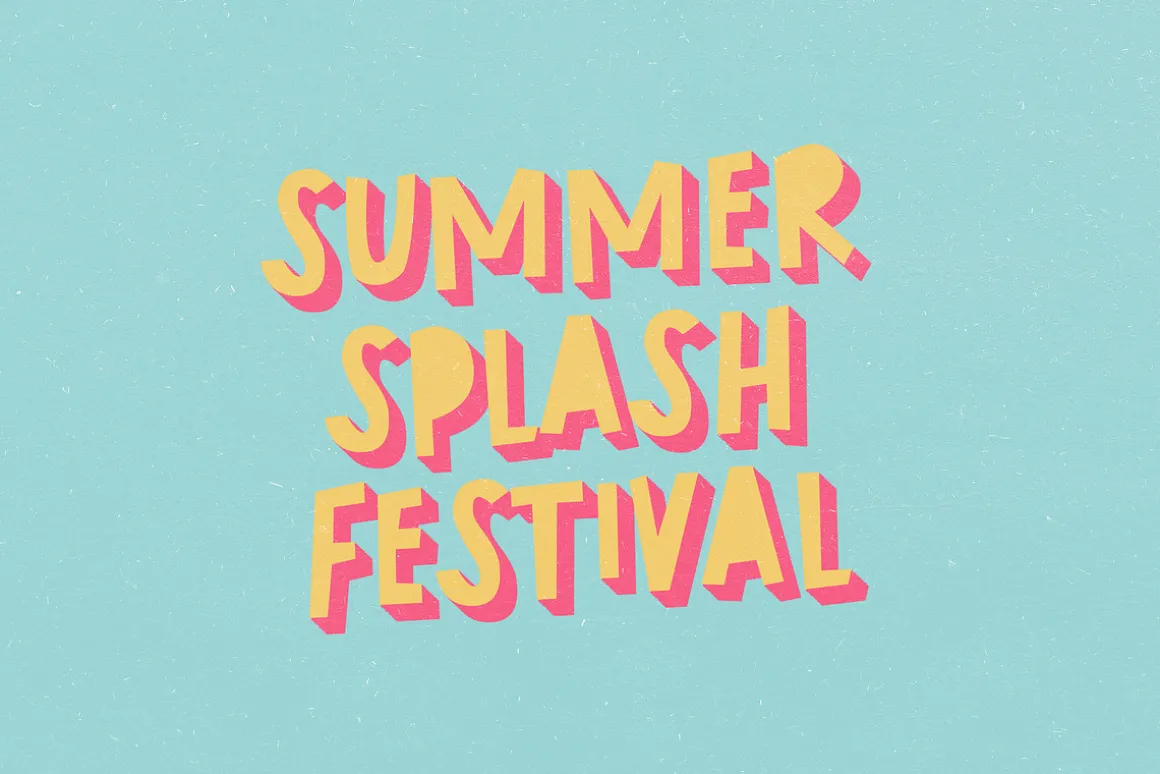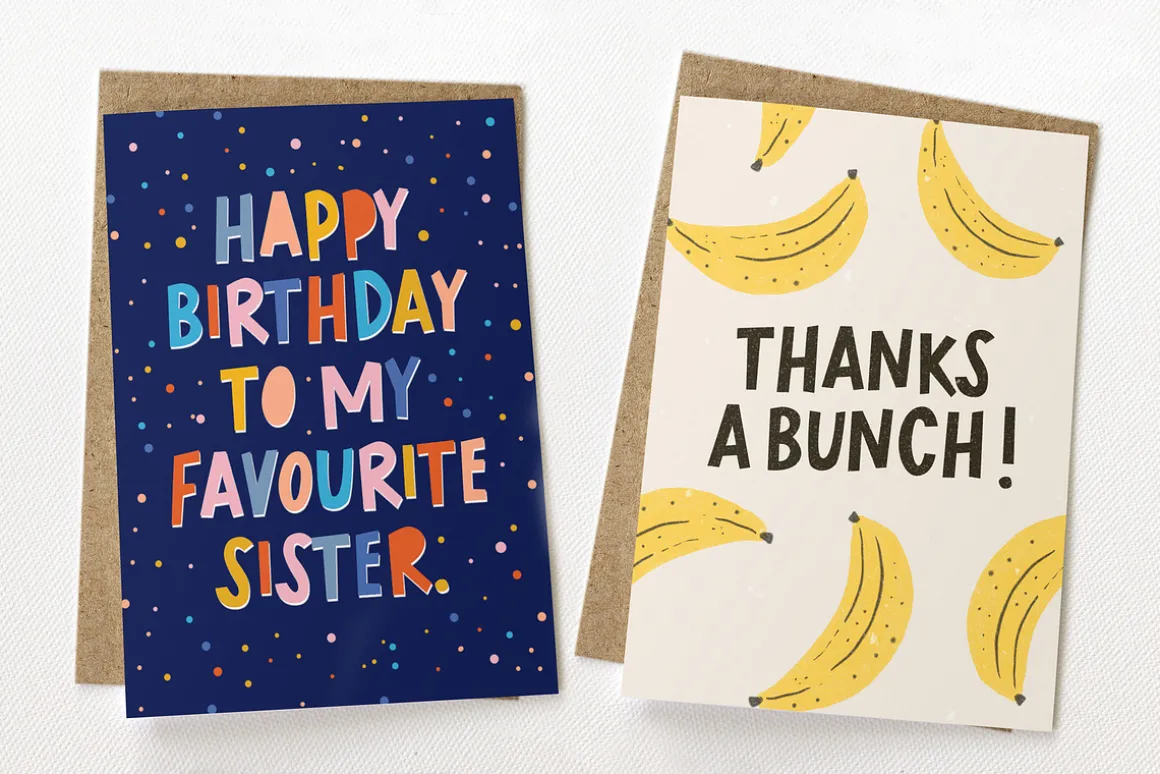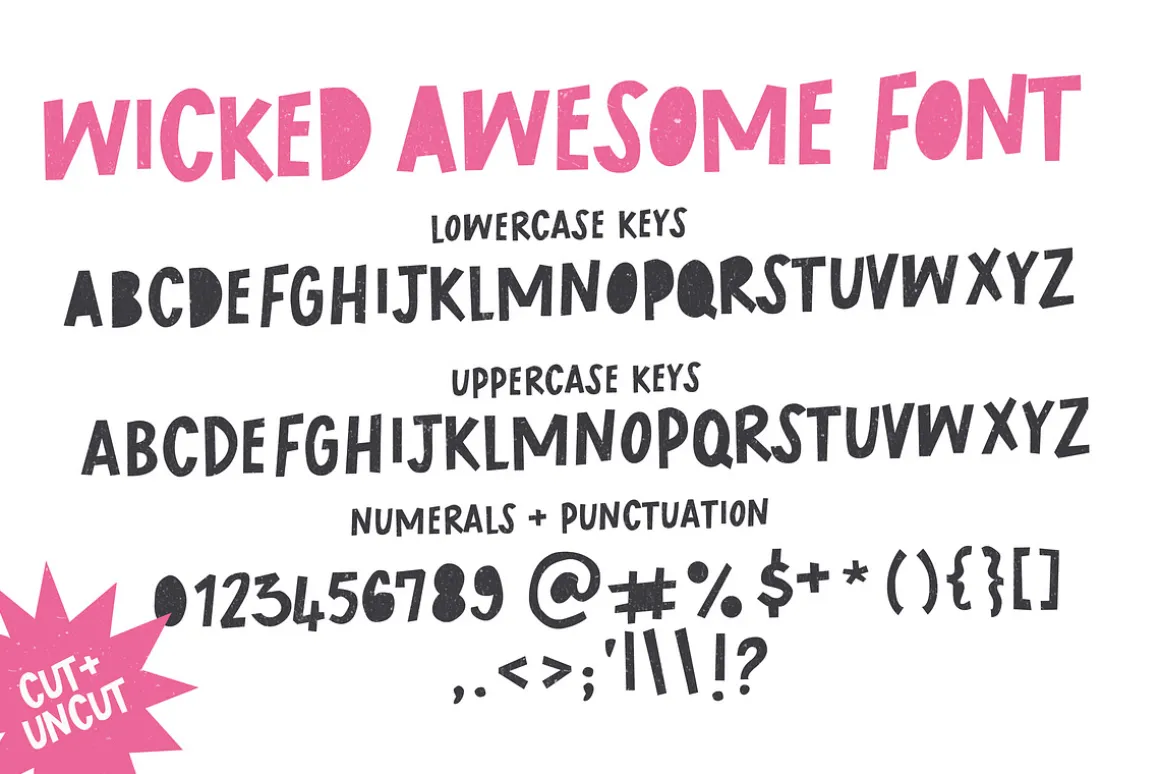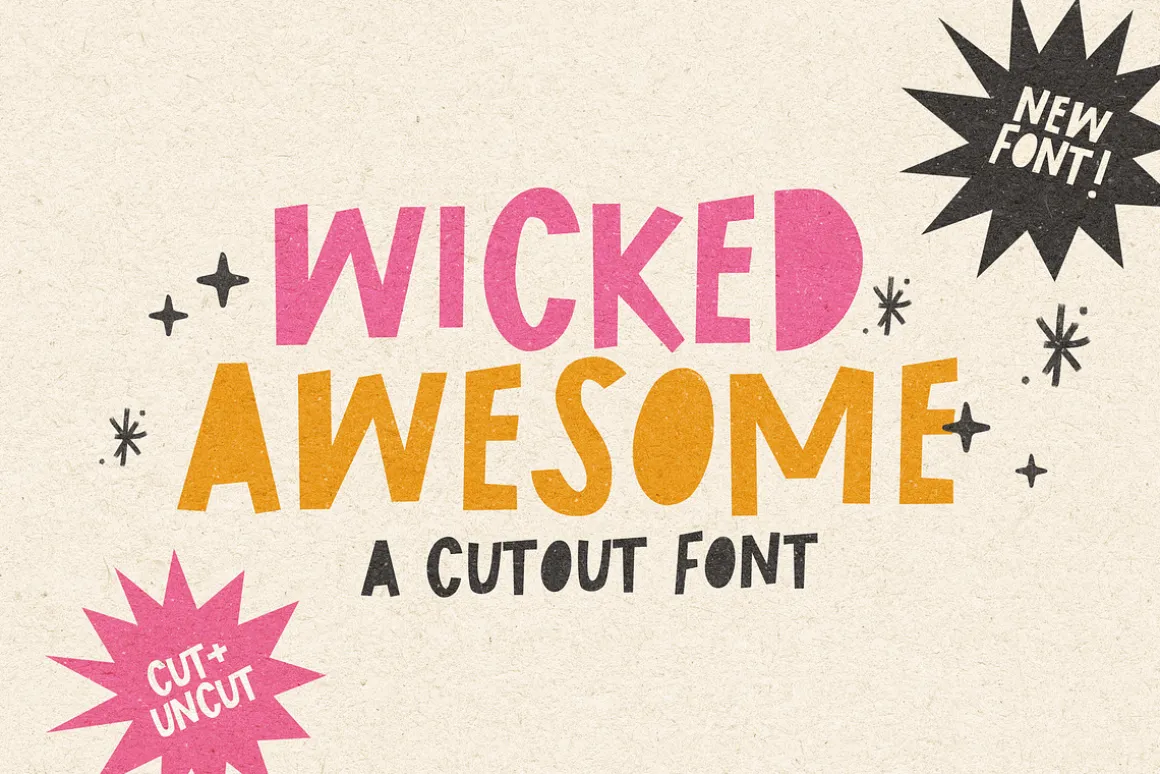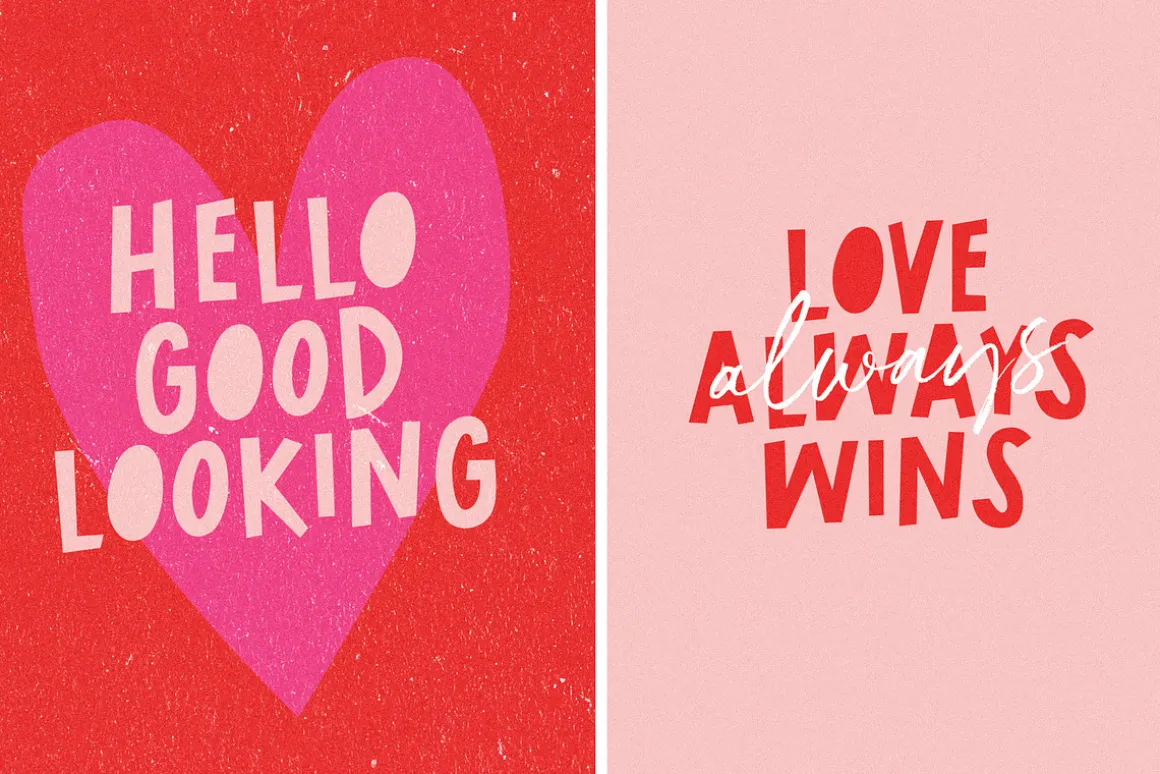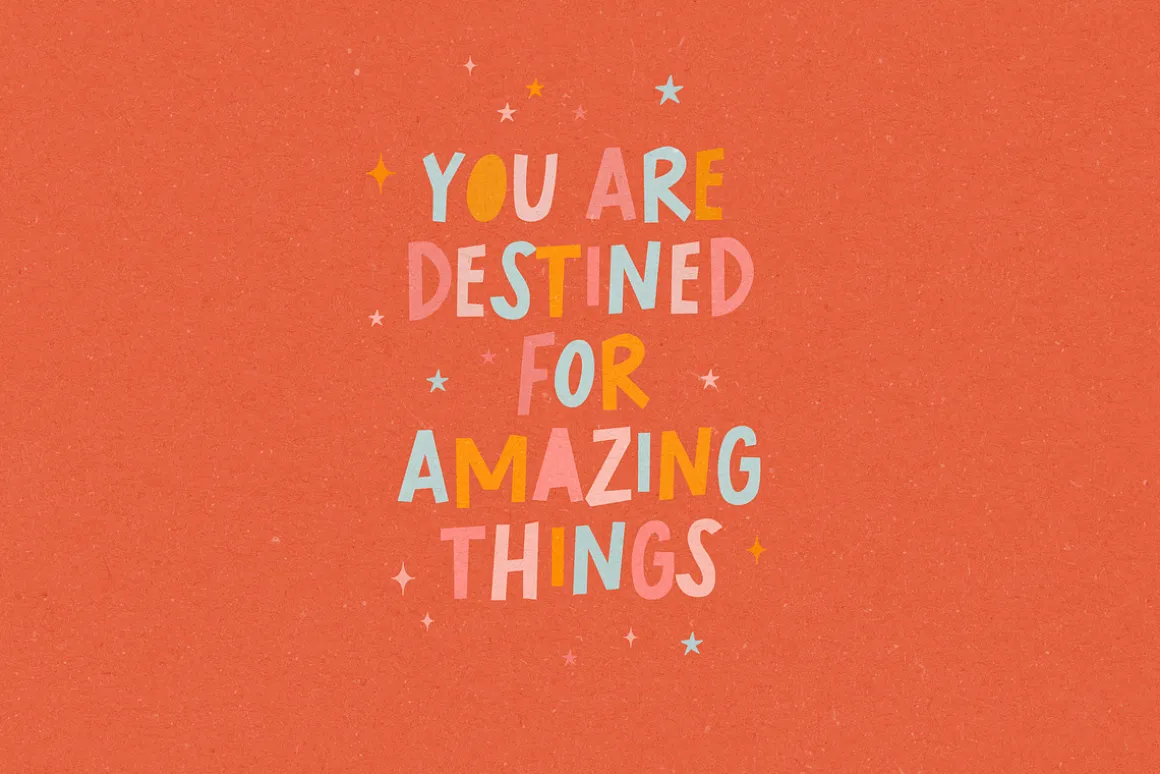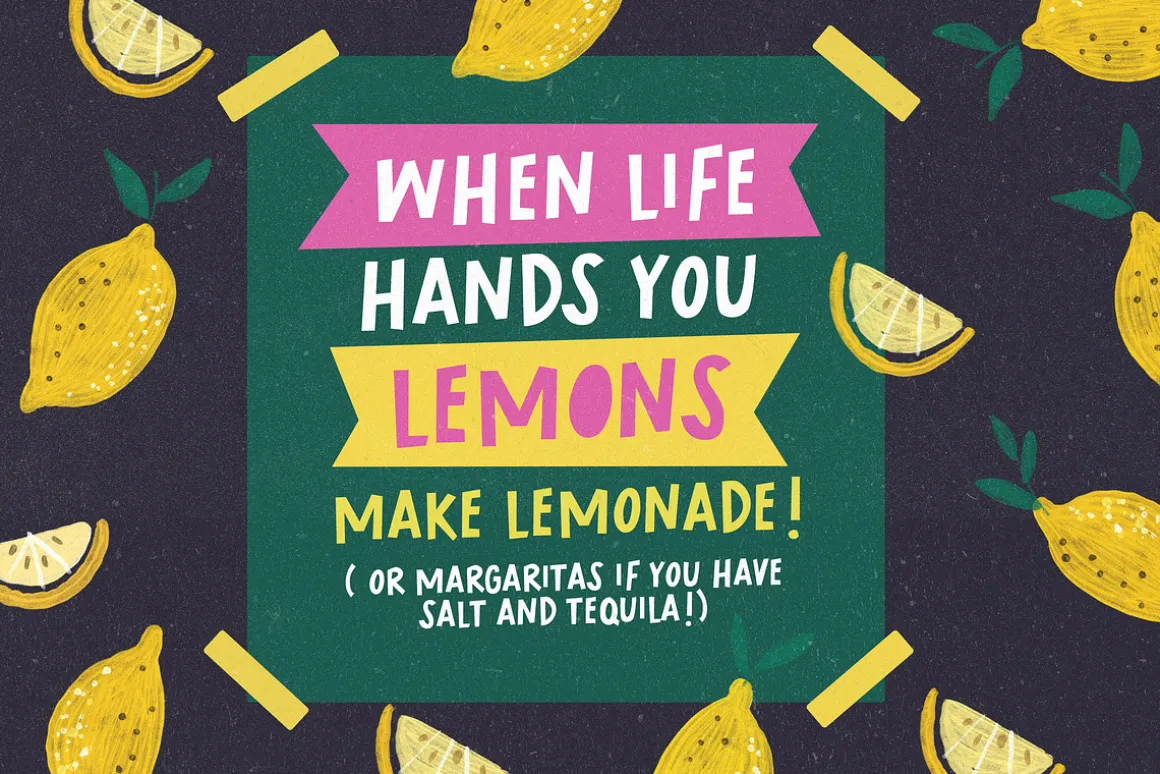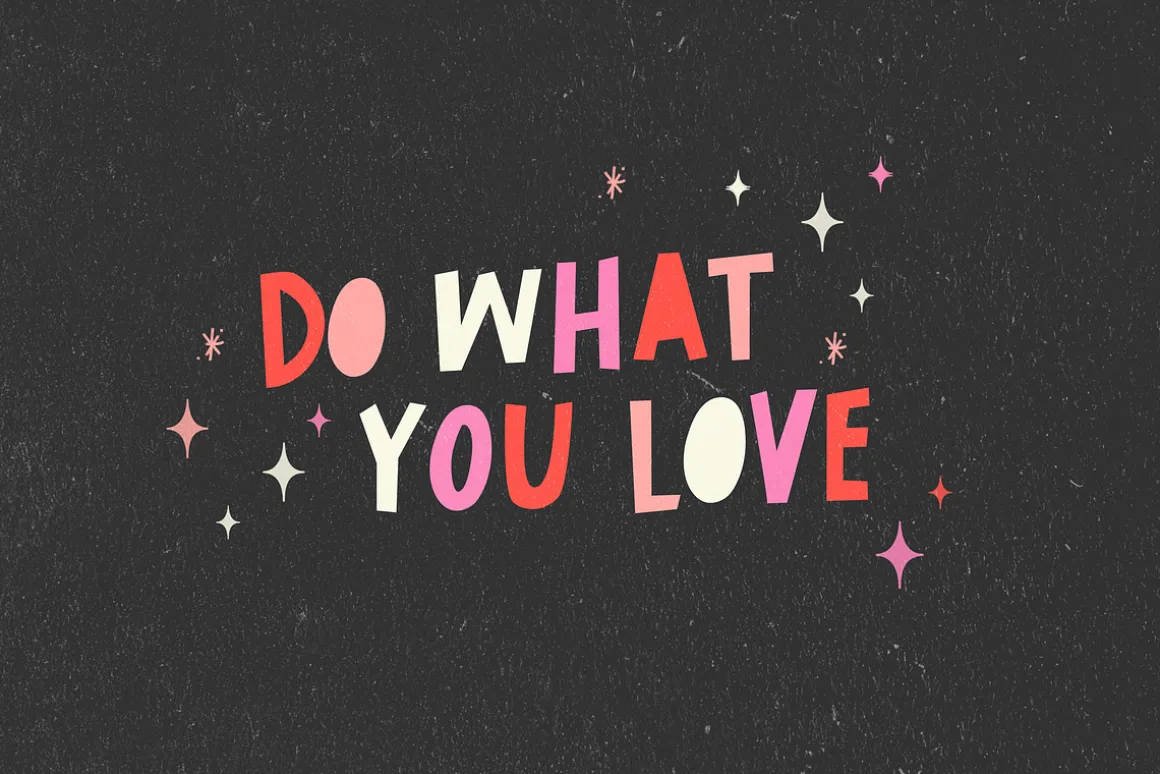
Say hello to Wicked Awesome! A playful all caps cutout-style font. Lowercase letters have filled letters(A,O,B etc) and the Uppercase keys have the regular unfilled letters. Pick and choose which letters you want filled to get the look you are after 🙂
Great for greeting cards, quotes, social media posts, posters, playful branding, and so much more!